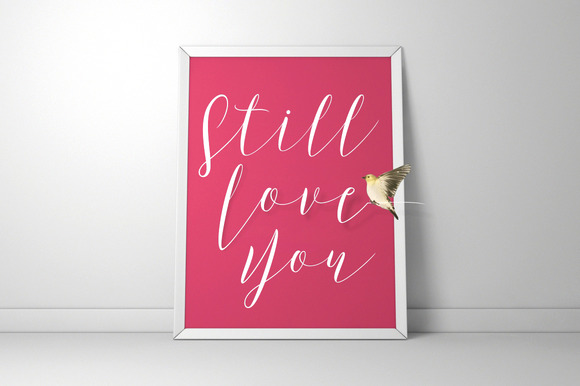
Murrano
Murrano Script Font
MurranoScript is the latest type of calligraphy flat top and will be very beautiful for any kind of design you With modern script style this font will perfect for many different project ex: quotes, blog header, poster, wedding, branding, logo, fashion, apparel, letter, invitation, stationery, etc.
Murrano Script have 320+ glyphs and 130 alternate characters. including initial and terminal letters, ligatures, and multiple language support.